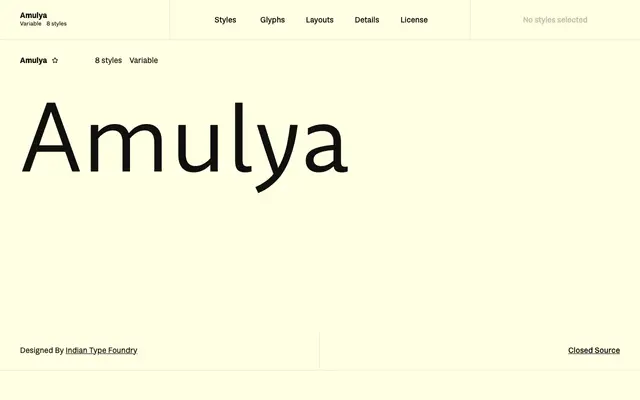
Amulya
A humanist sans by Joana Correia with curved out-strokes and open counterforms that give it warmth across text and display settings.
Designed by Joana Correia and released via Fontshare in 2021, Amulya distinguishes itself among humanist sans-serifs through curved out-strokes on several letters, an unusual choice that adds character without sacrificing legibility. Open counterforms keep reading comfortable across screen and print, and the family spans Light to Bold with matching italics plus variable font support. Suited to corporate identity, signage, magazines and long-form text. The name means 'precious' in Hindi.
Classified as humanist sans by the foundry; letterforms show warmth and personality through curved out-strokes and open counterforms typical of humanist design principles.